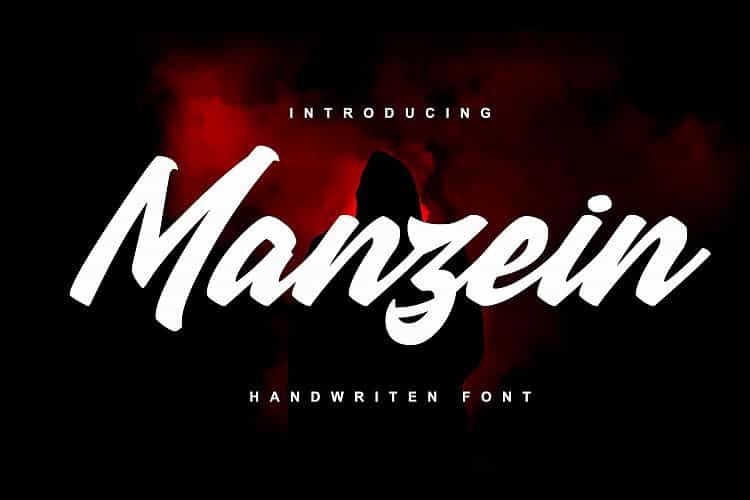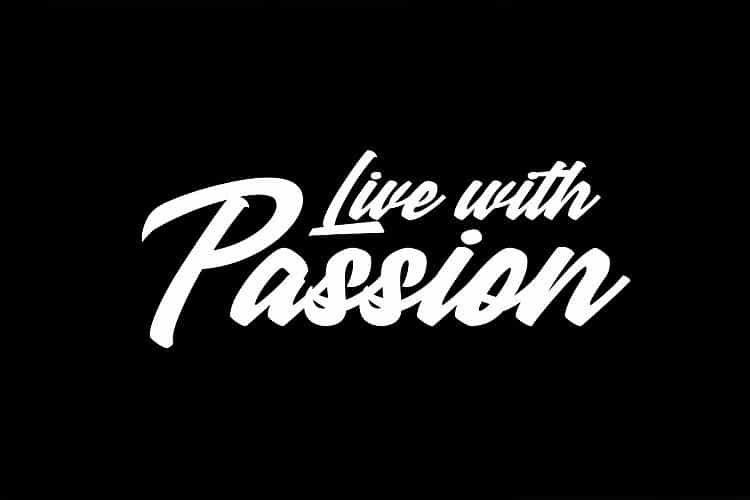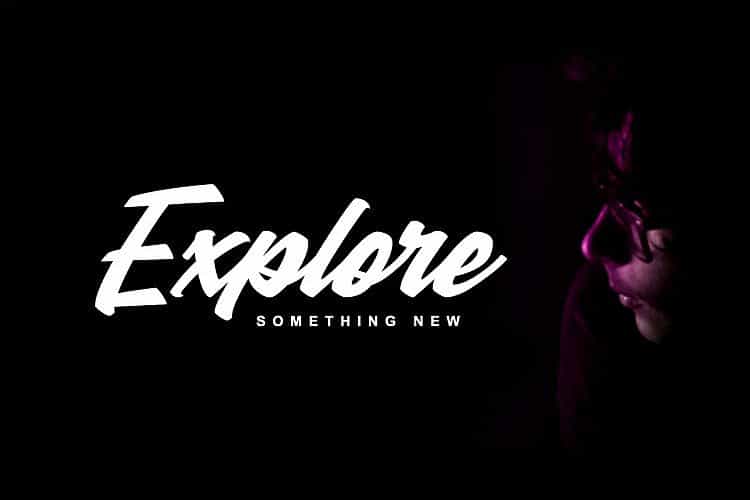
Discover Manzein Script Font, part of the Brush Calligraphy collection—a versatile and unique font perfect for adding a personal touch to your projects. Download it for free and enjoy crafting designs with style, from invitations to social media posts. This font is available exclusively for personal use, giving you the freedom to create without limits. Unlock your creativity with Manzein Script Font today!
Welcome Manzein Font. This is also another beautiful modern font of script, and this is blending the characteristic of the genuine calligraphic with the modern! It is design and shared by Ardian Nuvianto The diagram shows the contemporary model of organization structure.